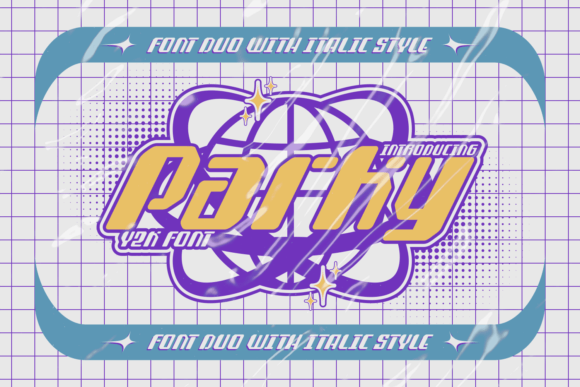
Introducing Parky Font - the ultimate font for Instagram posts and beyond. This cutting-edge display font, created by the talented team at shineink.designlab, is here to revolutionize your design projects. With its sleek and futuristic design, Parky Font embodies innovation and sophistication in every letter.
Are you tired of using generic fonts that fail to captivate your audience? Look no further, as Parky Font is here to steal the show. Its eye-catching and modern design will instantly grab attention and leave a lasting impression. Whether you're creating social media posts, logos, or editorial designs, Parky Font will elevate your visuals to new heights.
One of the standout features of Parky Font is its versatility. While it shines in technology-related designs, it's also perfect for branding and editorial projects. No matter the industry or style, Parky Font adapts effortlessly to suit your creative needs. Its clean lines and carefully crafted curves create a seamless aesthetic that exudes professionalism and style.
But that's not all - Parky Font is PUA encoded, granting you access to a treasure trove of delightful glyphs and swashes. Say goodbye to limited design options and hello to endless possibilities. With Parky Font, you can effortlessly enhance your designs with unique and attention-grabbing elements that will truly set you apart from the competition.
Imagine the impact of using Parky Font on your Instagram posts. Your followers will be captivated by the futuristic and modern vibe it brings to your feed. Whether you're promoting a product, sharing inspirational quotes, or showcasing your artistic talents, Parky Font will elevate your content and create a cohesive and visually stunning brand image.
Don't settle for mediocre fonts that fail to make an impact. Parky Font is here to transform your designs and take them to the next level. With its sleek and futuristic design, versatility across various design projects, and the endless creative possibilities offered by its PUA encoding, Parky Font is a must-have for anyone looking to make a statement.